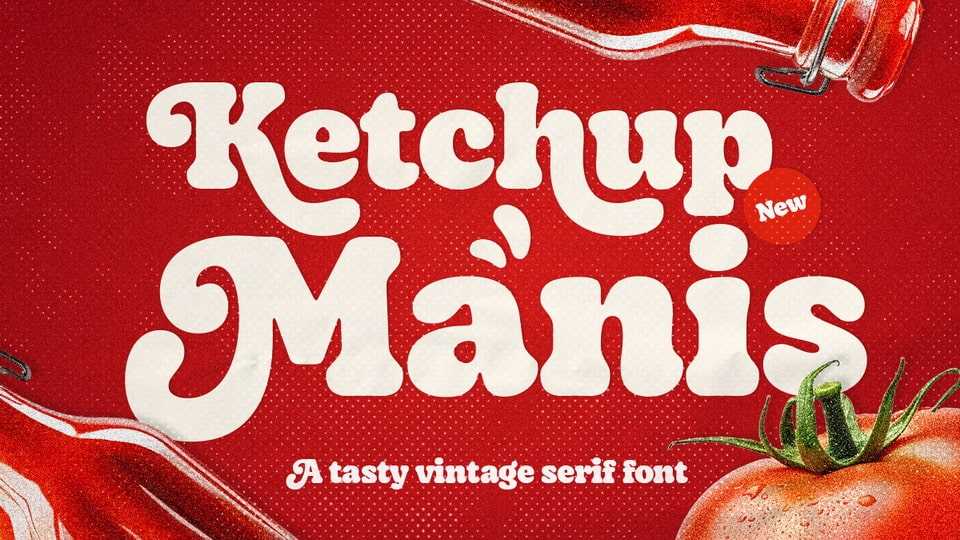
Download Ketchup Manis font, a tasty vintage serif typeface inspired by the nostalgic retro aesthetic making a comeback and the timeless charm of the classic Cooper Black, but with a touch of modern style shapes
Designer: Kereatype Studio